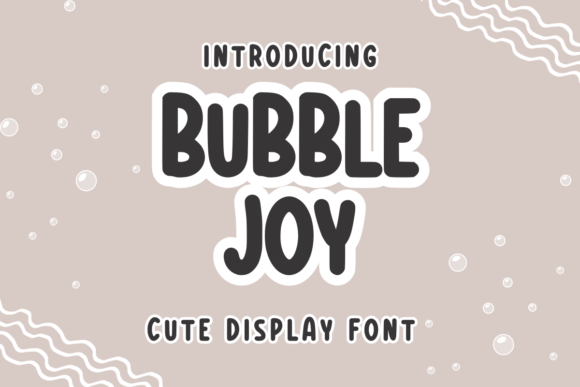
The Joy of Bubbles: Discovering the Delightful Bubble Joy Font
I’ll never forget the time I was working on a whimsical craft project, pouring my heart and soul into creating the perfect design. But, as I sat staring at my computer screen, I realized I was stuck – I just couldn’t find the right font to bring my vision to life. That’s when I stumbled upon the enchanting Bubble Joy Font. It was love at first sight! ✨
An Honest Review of Bubble Joy Font
- ✨ The adorable, bubbly aesthetic that instantly adds a playful touch to any design
- ✅ Highly versatile and suitable for a wide range of creative projects, from crafting and DIY to digital graphics and branding
- 💫 Beautifully designed with attention to detail, making it a true gem in any font library
While Bubble Joy Font is truly delightful, there are a few minor things to keep in mind: 🤔
- ⚠️ Some users may find the font’s playful nature too informal for certain projects, such as corporate branding or formal events
- ⚠️ As with any display font, it’s best used in large sizes to maintain its impact and readability
The Story Behind Bubble Joy Font
Legend has it that the designer behind Bubble Joy Font was inspired by the simple joys of childhood – blowing bubbles, watching them float through the air, and popping them with glee. With this font, they aimed to capture that carefree spirit and bring it to life in a beautiful, bubbly typeface.
Q: What type of projects is Bubble Joy Font best suited for?
A: Bubble Joy Font is highly versatile and can be used for a wide range of creative projects, including crafting, DIY, digital graphics, branding, and more.
Q: Is Bubble Joy Font available in different weights or styles?
A: While Bubble Joy Font is primarily available as a single weight, its playful nature and range of OpenType features make it easy to experiment with different styles and effects.